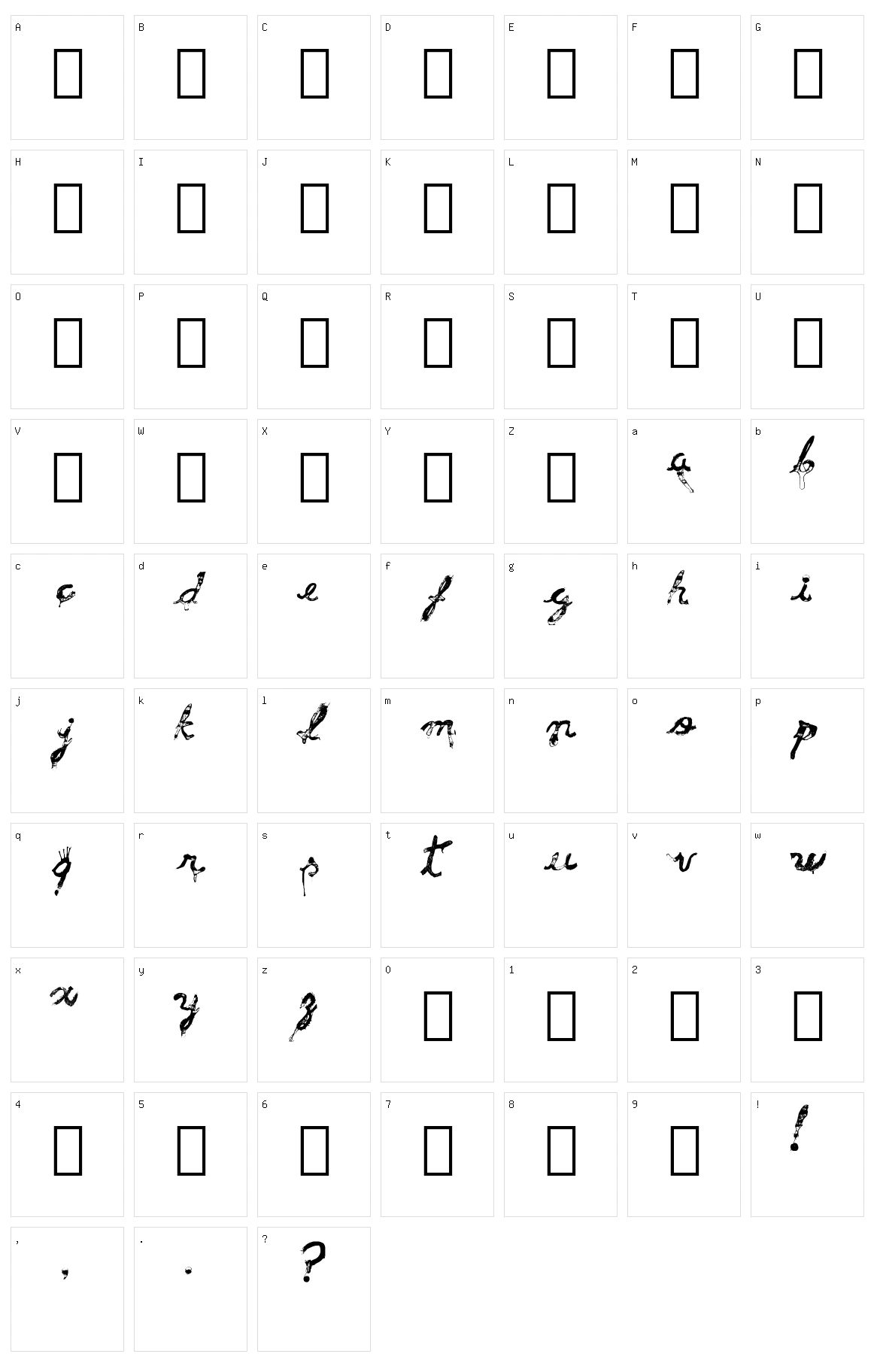
The free font Gender Violence is carefully designed by Support Against Gender Violence, showcasing a thoughtful balance of creativity and usability and falls under the Trash font style. When you download the ZIP file, it contains only 154.8 KB of font files, making it lightweight and quick to download. Please review the license details below to understand permitted usage and distribution rights. If license information is not available, we recommend using this font for personal projects only or contacting the author directly for commercial usage permissions.